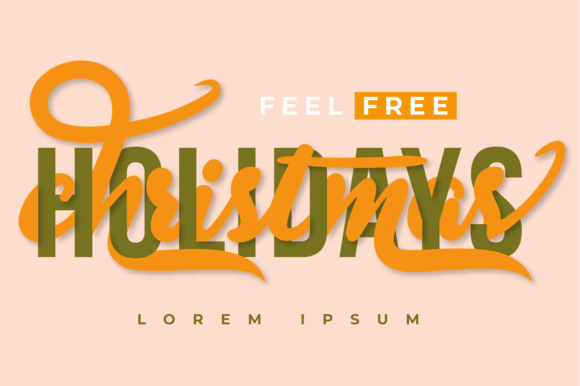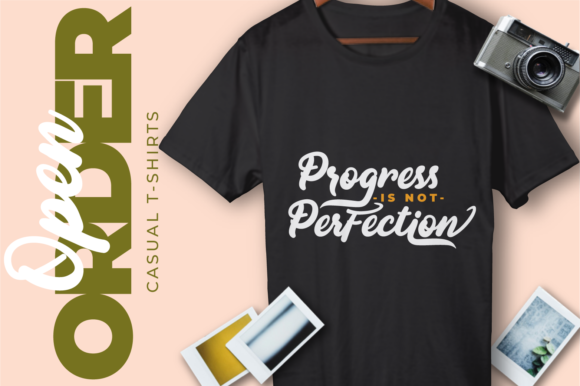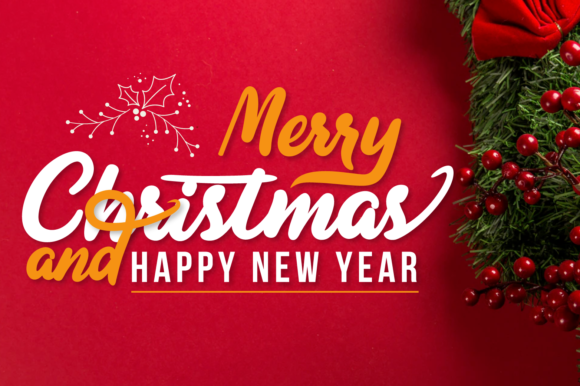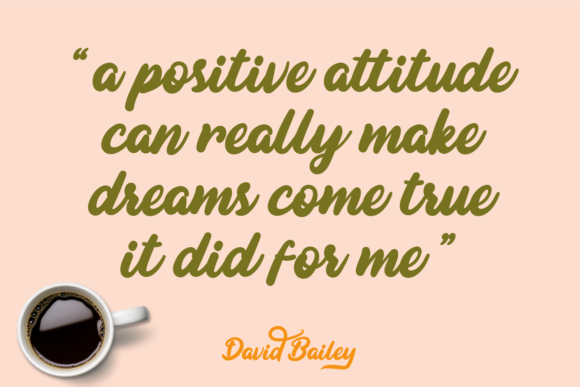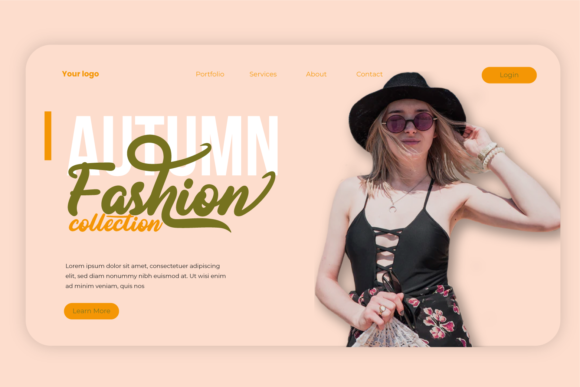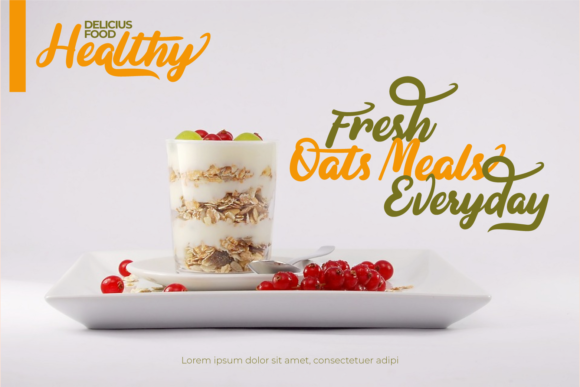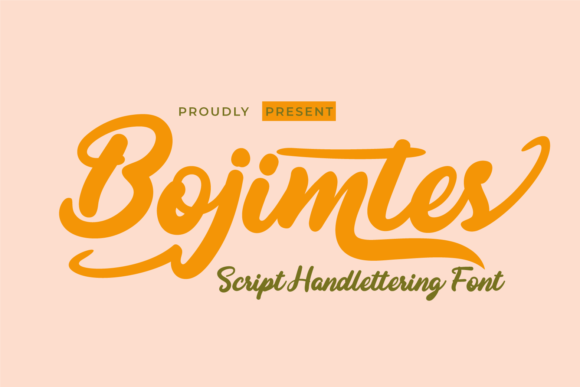
Introducing Bojimtes Font: A Beautiful and Bold Handwritten Font
Are you a designer or crafter looking for a unique and eye-catching font to elevate your creative projects? Look no further than Bojimtes Font! This stunning handwritten font is perfect for a wide range of applications, from logos and wedding invitations to headings, t-shirts, and more.
What is Bojimtes Font?
Bojimtes Font is a beautiful and bold handwritten font that is sure to make a statement in any design project. Its unique and elegant script style makes it perfect for adding a touch of sophistication and personality to your work. Whether you’re creating a logo, invitation, or signage, Bojimtes Font is the perfect choice.
What Can I Use Bojimtes Font For?
The versatility of Bojimtes Font is one of its standout features. This amazing font can be used for a wide range of purposes, including:
- Logos: Create a unique and memorable logo for your business or brand with Bojimtes Font.
- Wedding Invitations: Add a touch of elegance and romance to your wedding invitations with this beautiful font.
- Headings: Use Bojimtes Font to create eye-catching headings for your website, blog, or marketing materials.
- T-Shirts: Design custom t-shirts with Bojimtes Font for a unique and stylish look.
- Letterhead: Elevate your business correspondence with Bojimtes Font on your letterhead.
- Signage: Create eye-catching signs with Bojimtes Font for your business, event, or display.
- Labels: Use Bojimtes Font to create custom labels for your products or packaging.
- News: Add a touch of style to your news articles or blog posts with Bojimtes Font.
- Posters: Create stunning posters with Bojimtes Font for your event, promotion, or advertisement.
- Badges: Design custom badges with Bojimtes Font for your business, event, or organization.
Why Choose Bojimtes Font?
So why should you choose Bojimtes Font for your design projects? Here are just a few reasons:
- Unique and Eye-Catching: Bojimtes Font is a one-of-a-kind font that is sure to grab attention and make your designs stand out.
- Elegant and Sophisticated: The elegant script style of Bojimtes Font adds a touch of sophistication and personality to your designs.
- Versatile: Bojimtes Font can be used for a wide range of purposes, from logos and invitations to headings and signage.
- Easy to Read: Despite its bold and elegant style, Bojimtes Font is easy to read and understand, making it perfect for body text and headlines.
- Experiment with Different Sizes: Bojimtes Font looks great in a variety of sizes, from small and delicate to large and bold.
- Play with Color: Bojimtes Font comes in a range of colors, so don’t be afraid to experiment and find the perfect hue for your design.
- Combine with Other Fonts: Bojimtes Font pairs well with a range of other fonts, so try combining it with different fonts to create a unique and eye-catching look.
Bojimtes Font is a beautiful and bold handwritten font that is perfect for designers and crafters looking to elevate their creative projects. With its unique and elegant script style, versatility, and ease of use, Bojimtes Font is the perfect choice for a wide range of applications. Whether you’re creating a logo, invitation, or signage, Bojimtes Font is sure to make a statement and leave a lasting impression.